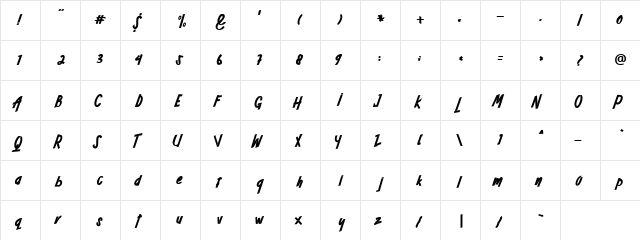
ADRENALINE Regular
Design Context for ADRENALINE Typeface
ADRENALINE is a composed and adaptable typeface that performs quietly and consistently across a wide range of design contexts.